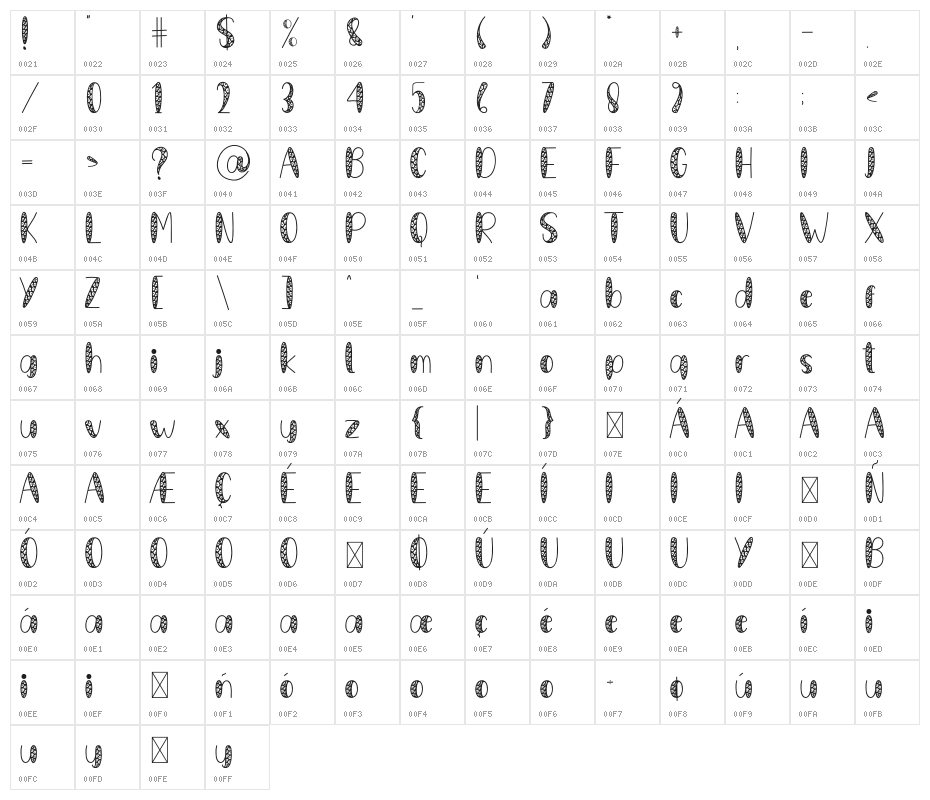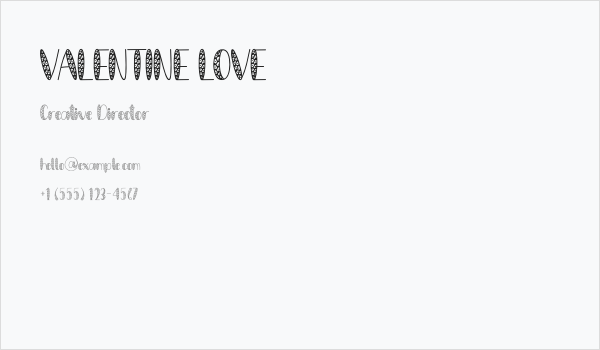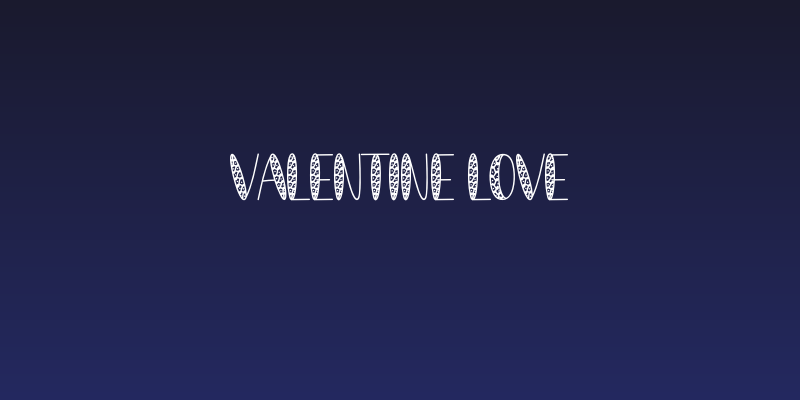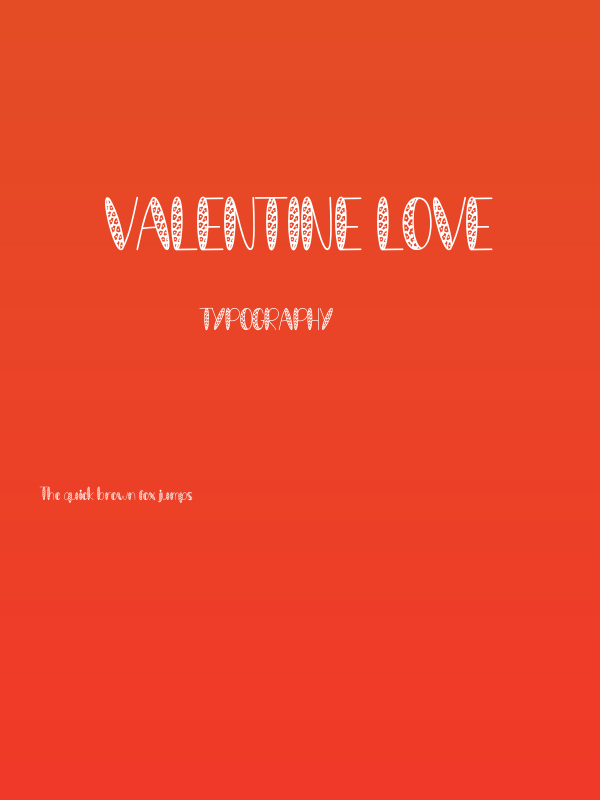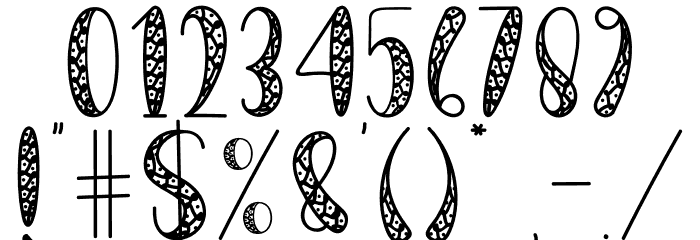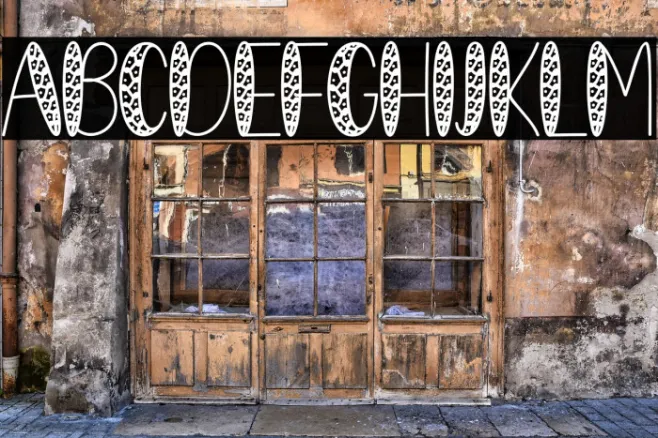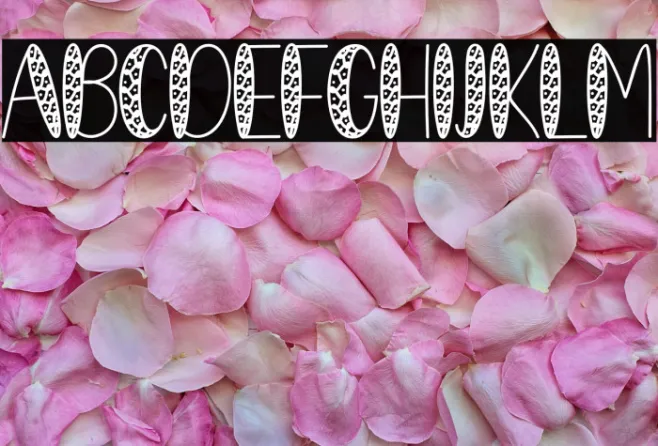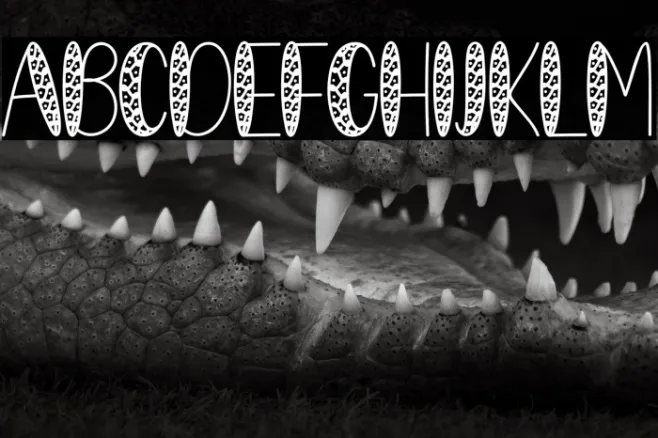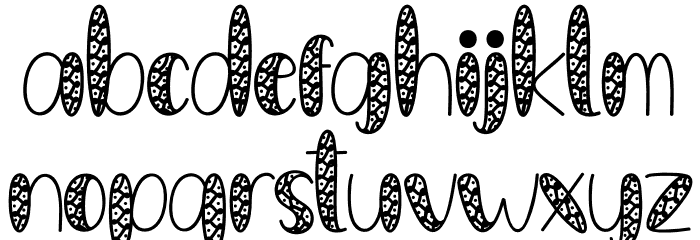
VALENTINE LOVE Font
VALENTINE LOVE Description
This playful and decorative font features a whimsical design with heart-shaped patterns embedded within each character. The uppercase and lowercase letters are crafted with a consistent, flowing style that adds a touch of romance and charm. The numbers and special characters maintain this cohesive look, making the font ideal for projects that require a fun and loving aesthetic. The overall appearance is both eye-catching and unique, perfect for capturing attention in creative designs.
| Proposed Projects | Ideal for Valentine's Day cards, wedding invitations, love-themed posters, and playful branding projects. |